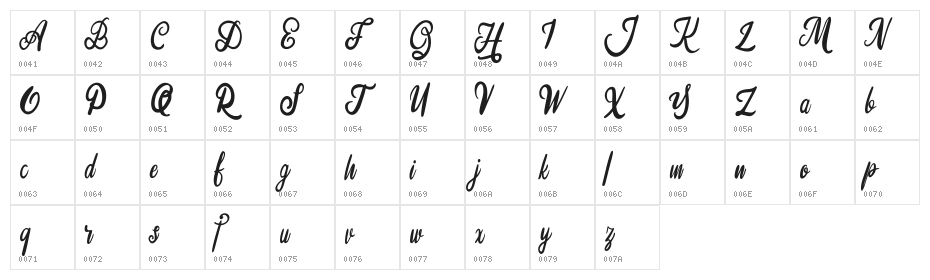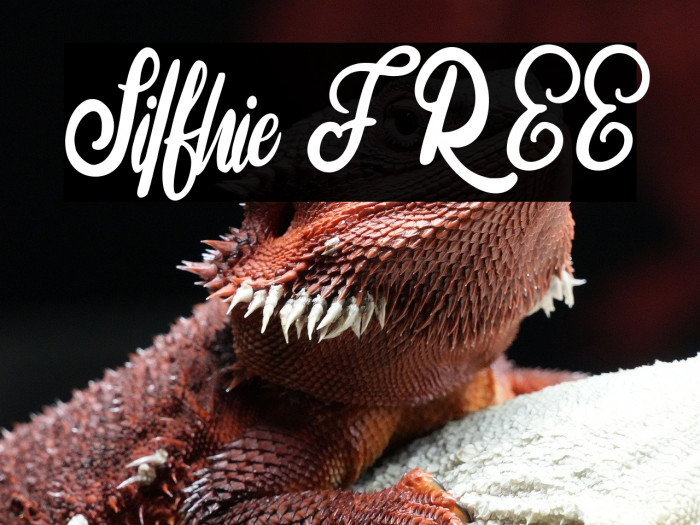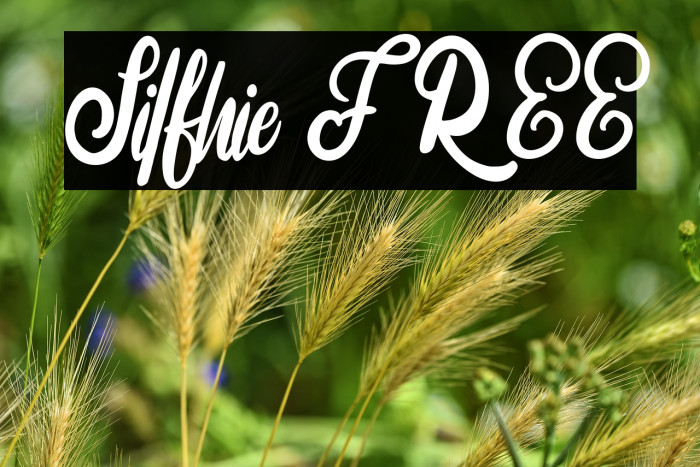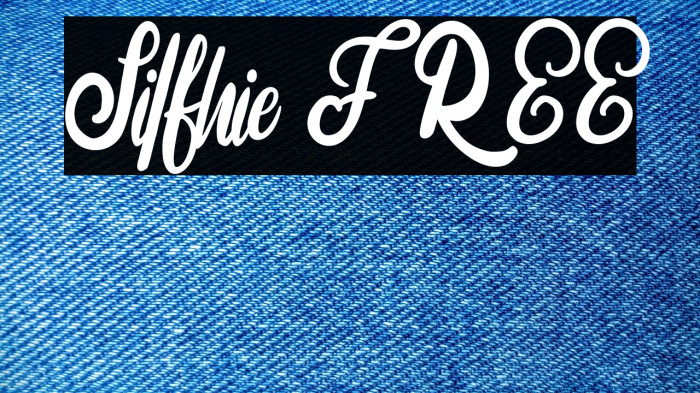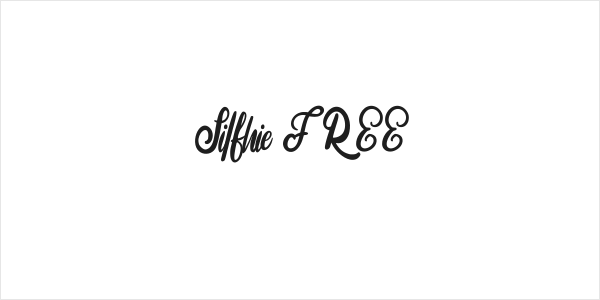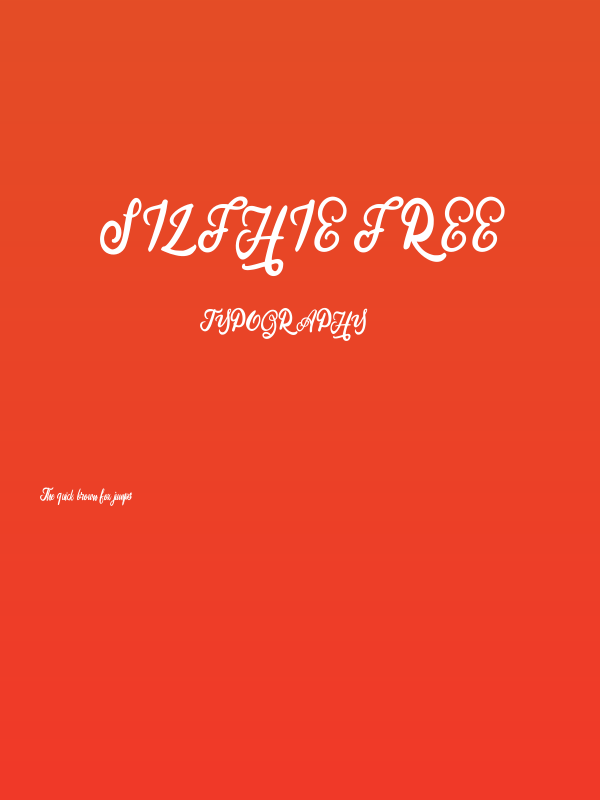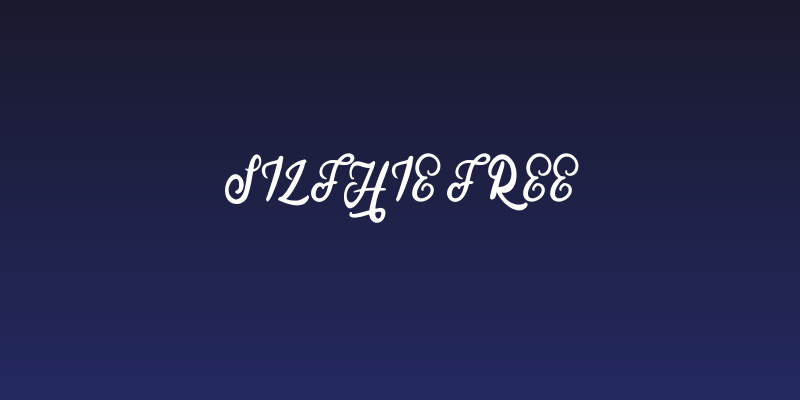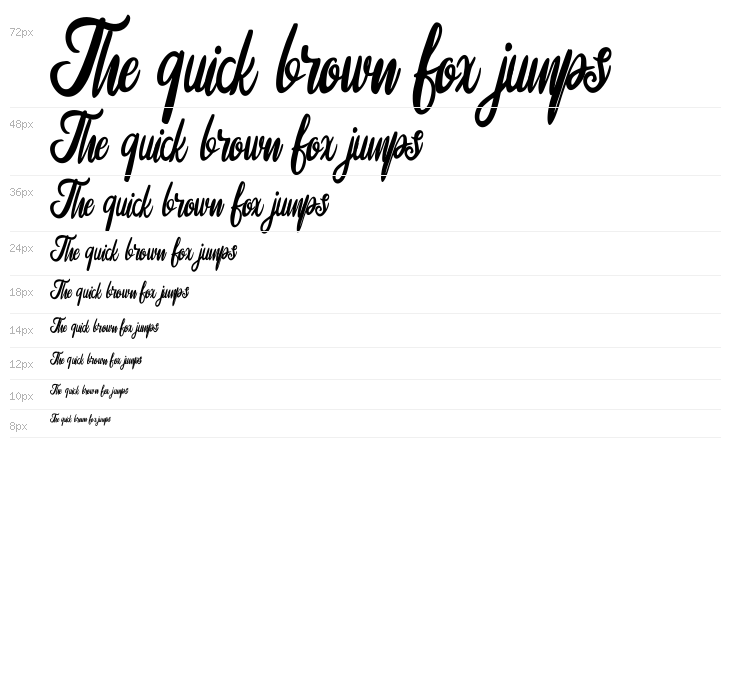
Silfhie FREE Font
Silfhie FREE Description
This font features an elegant and flowing script style, characterized by its intricate and decorative letterforms. The uppercase letters exhibit a sophisticated flair with extended loops and swashes, while the lowercase letters maintain a consistent cursive flow. The font's design is reminiscent of classic calligraphy, offering a sense of grace and refinement. The characters are well-spaced, allowing for readability despite the ornate details. This font is ideal for projects that require a touch of elegance and sophistication, such as wedding invitations, formal event programs, or luxury branding.
| Proposed Projects | Ideal for wedding invitations, formal event programs, luxury branding, and elegant stationery. |